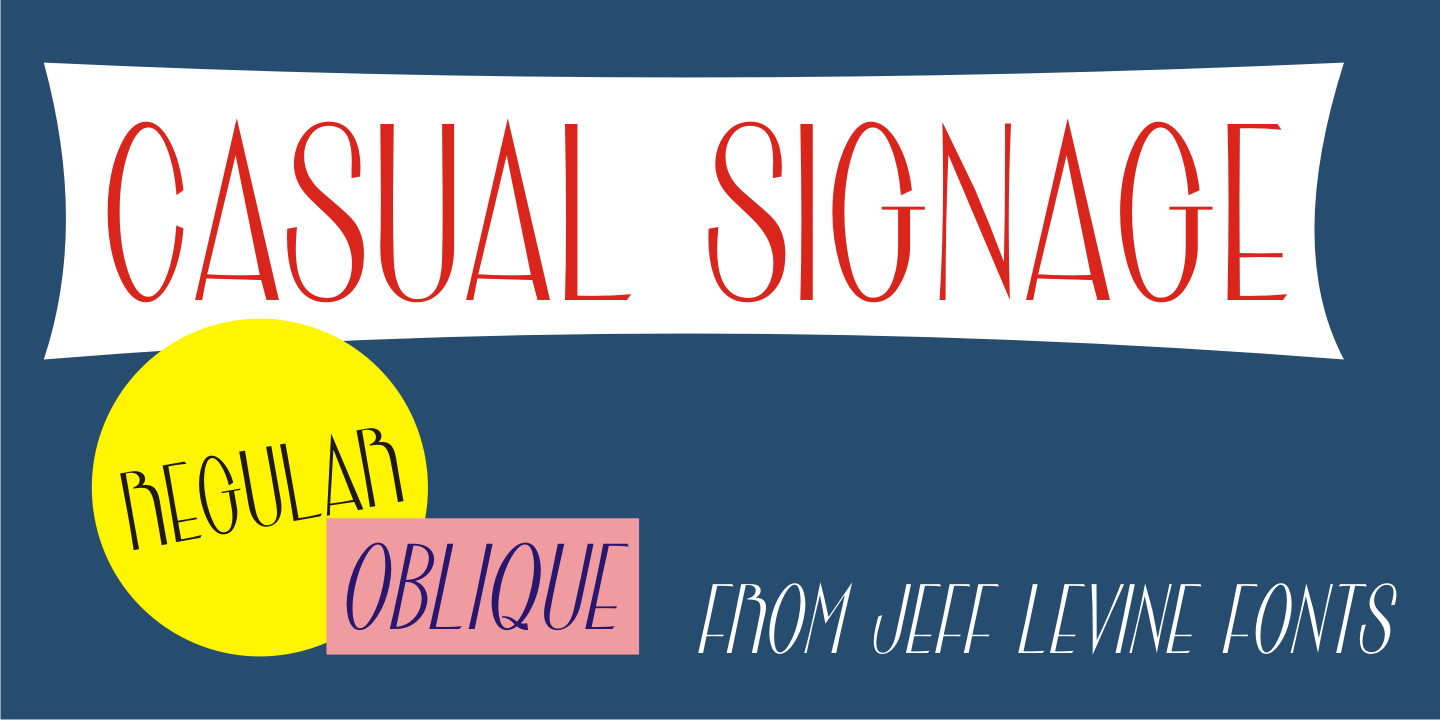
Casual Signage JNL Font is ideal for neighborhood coffee shops, local retail stores, friendly restaurant signage, community center announcements, small business branding, casual dining establishments, family-friendly venues, approachable service providers, relaxed hospitality brands, informal educational materials, welcoming office environments, and laid-back lifestyle communications.
This font is exciting because it perfectly captures the warm, approachable charm of hand-painted storefront signs that make neighborhoods feel like home, featuring friendly letterforms that communicate with the same genuine warmth and unpretentious authenticity found in local businesses where everyone knows your name and customer service comes from the heart rather than corporate policy. The relaxed character design strikes the perfect balance between professional legibility and casual accessibility, creating typography that invites rather than intimidates and welcomes rather than overwhelms. Each letter radiates the kind of honest friendliness and down-to-earth appeal that makes people feel comfortable and genuinely welcome.
The Casual Signage JNL Font family includes regular and bold weights with complete character sets featuring approachable numerals, friendly punctuation marks, and subtle design elements that enhance readability while maintaining the relaxed, hand-painted aesthetic. Advanced versions may offer additional weight variations, condensed options for efficient signage applications, and enhanced spacing optimized for both indoor and outdoor signage requirements.
Whether you're developing local business branding, creating community-focused signage, or designing approachable marketing materials, Casual Signage JNL Font Free Download provides the friendly accessibility and neighborhood charm your project needs to build genuine connections with customers who value personal service and authentic community relationships. This typeface transforms ordinary text into welcoming invitations that make people feel at home and appreciated. The font's approachable character makes it perfect for businesses that prioritize customer comfort and community connection over corporate formality. Local business owners and community-focused designers will appreciate how this font brings authentic neighborhood friendliness to their work with its genuinely welcoming and casually professional character that builds trust through approachability.